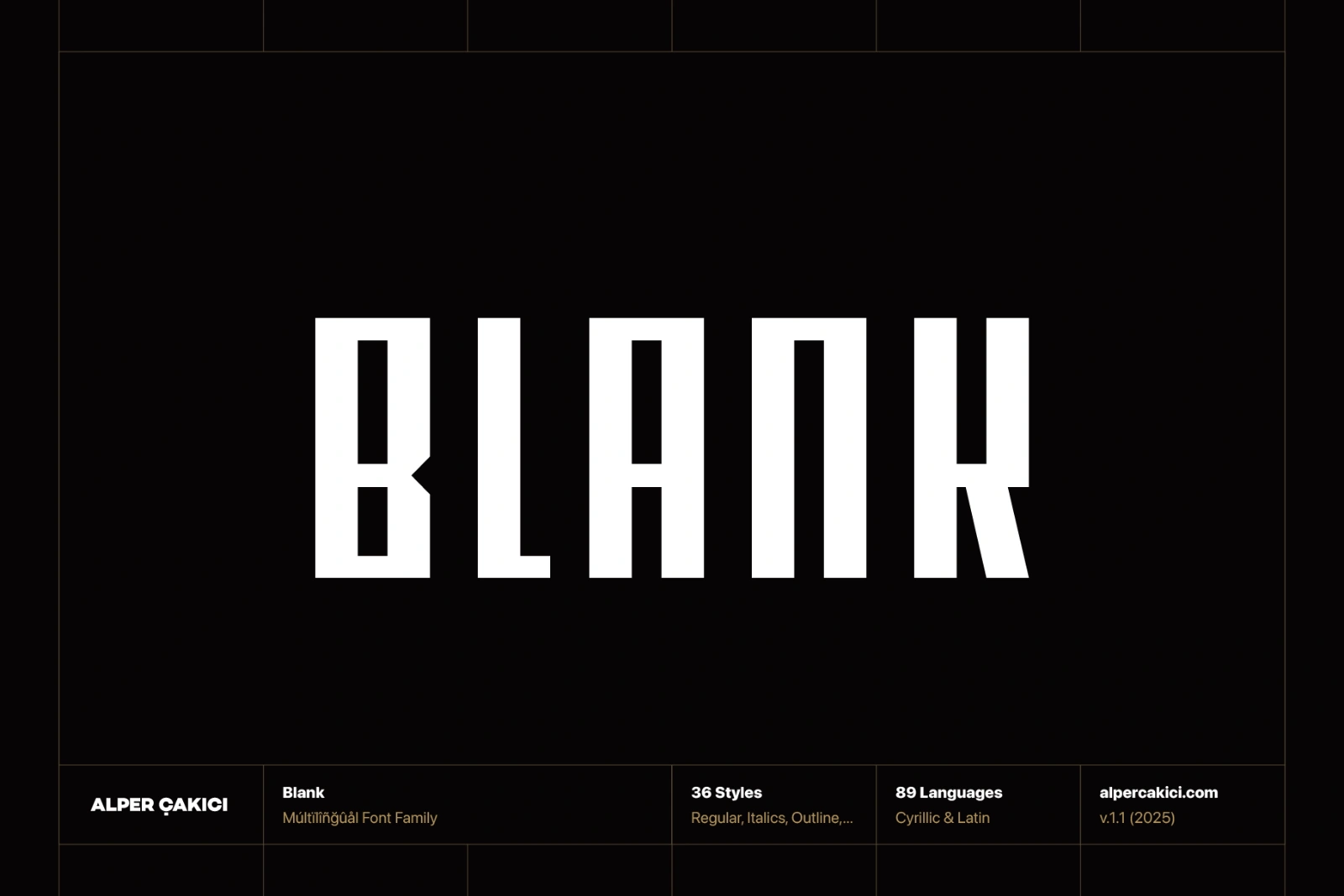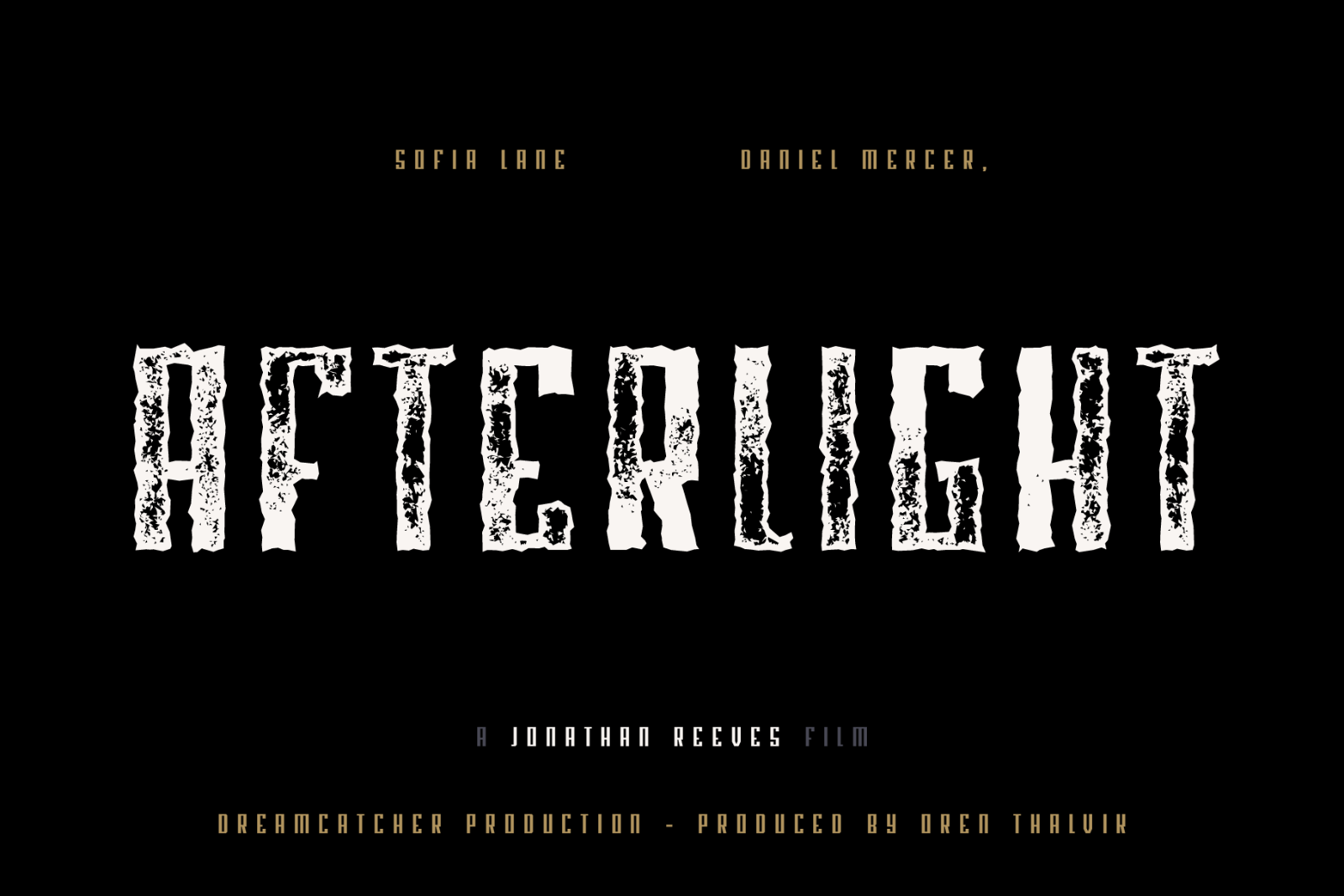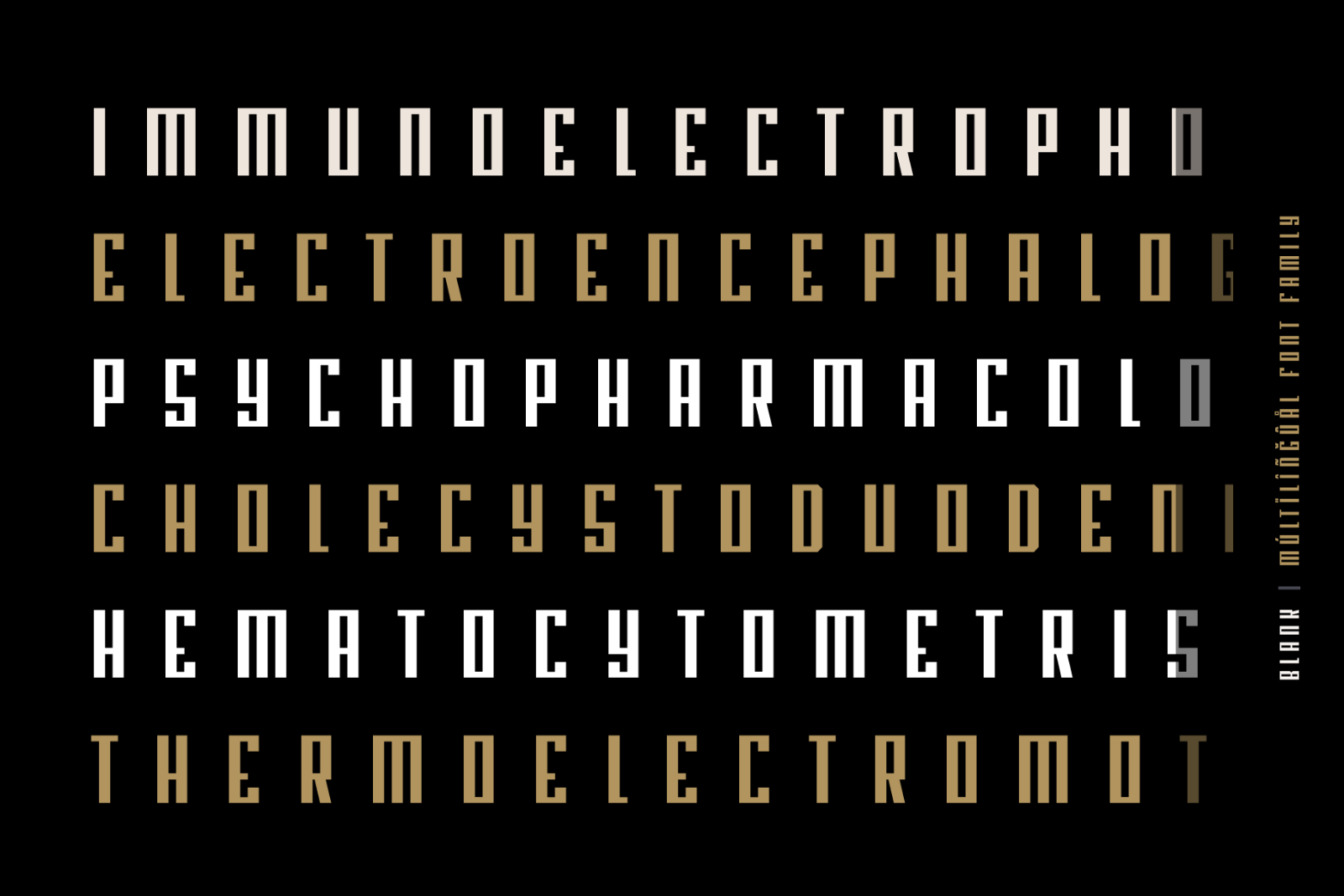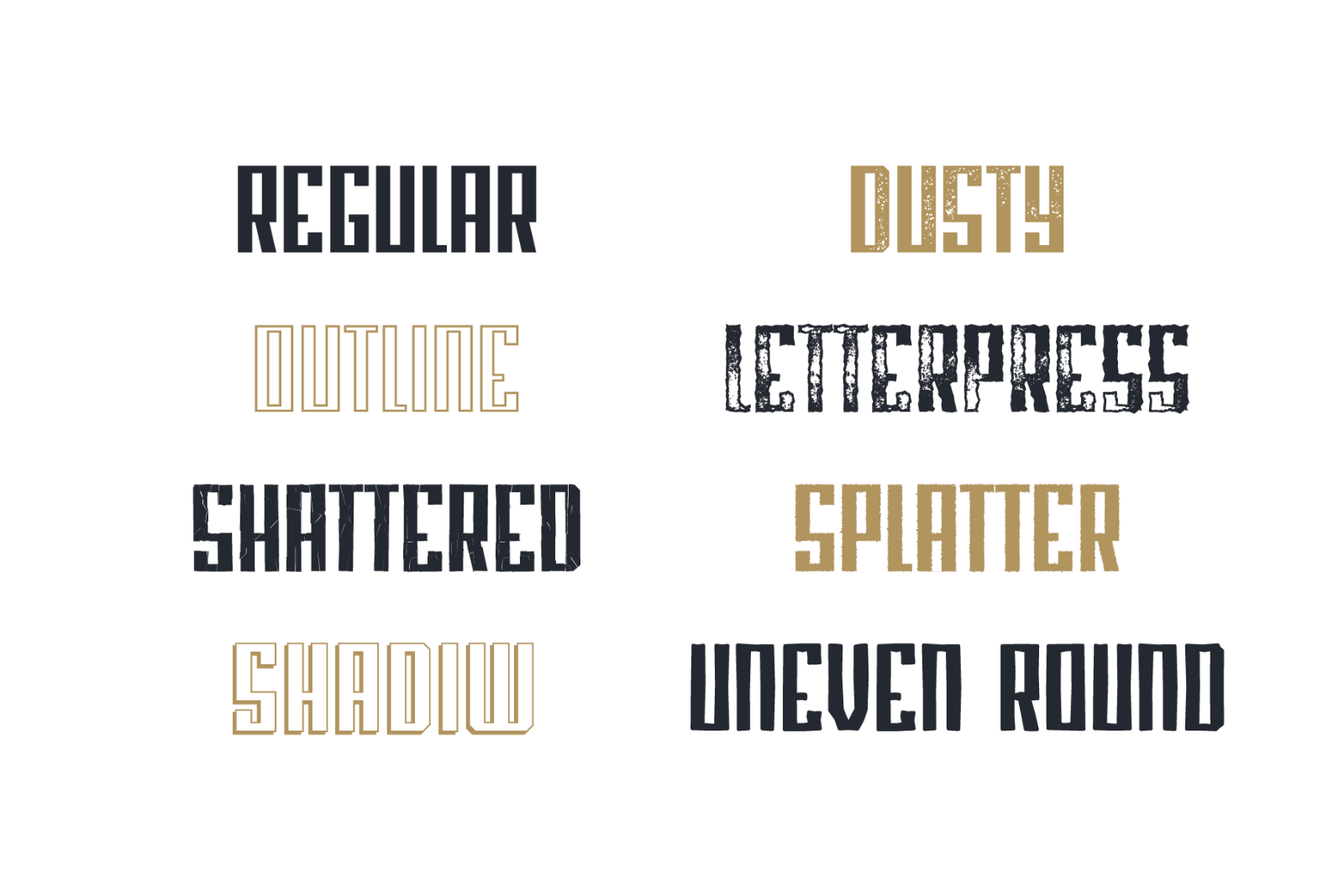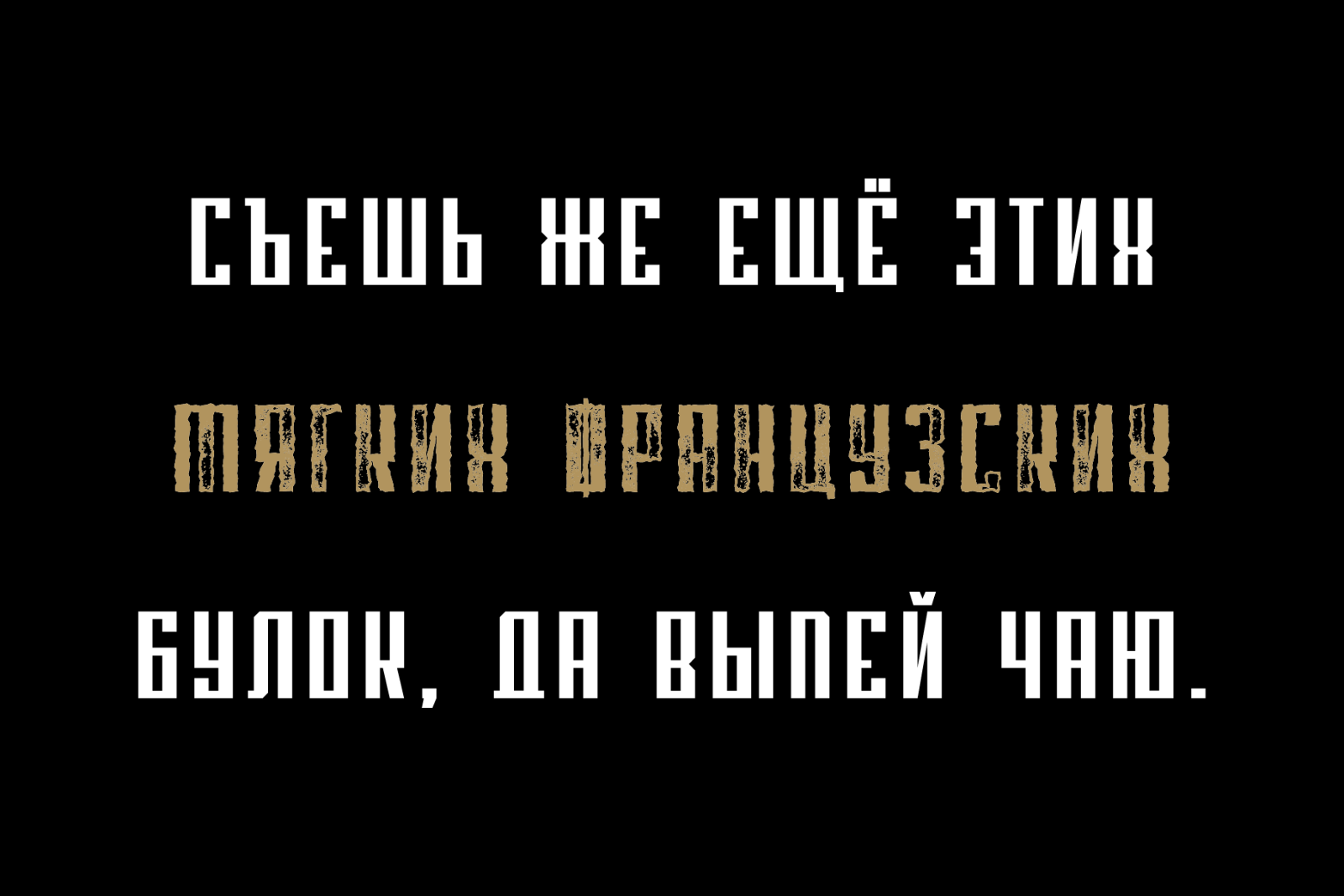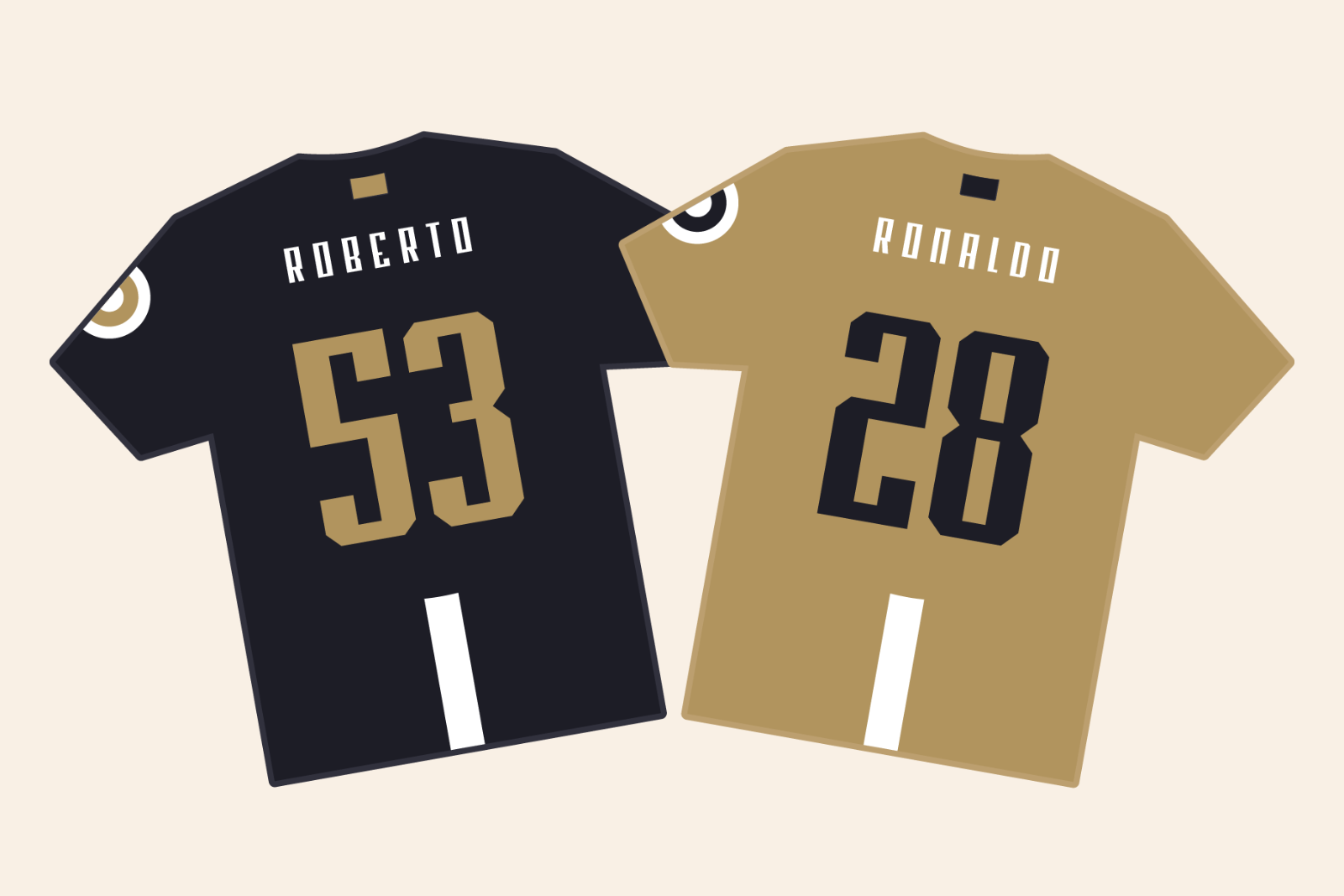
Blank is a modern and versatile typeface designed for clarity, balance, and impact across all mediums. With excellent kerning and carefully refined letterforms, it performs beautifully in both digital and print environments — from sleek web interfaces to bold editorial layouts.
Featuring complete Cyrillic language support, Blank enables seamless multilingual communication, making it a powerful choice for international brands, creative professionals, and design studios.
Its unique design blends timeless geometric proportions with subtle contemporary details, achieving a clean yet distinctive look that sets it apart from typical sans-serifs. Whether used for striking headlines, polished branding, or refined body text, Blank delivers consistent readability and sophistication.
Perfect for modern design projects, Blank combines functionality with aesthetic precision — a reliable companion for designers seeking elegance, versatility, and performance in one unified font family.
Afrikaans, Albanian, Asu, Basque, Bemba, Bena, Bulgarian, Catalan, Cebuano, Chiga, Cornish, Corsican, Danish, English, Erzya, Faroese, Filipino, French, Friulian, Galician, German, Gusii, Icelandic, Ido, Indonesian, Interlingua, Irish, Italian, Javanese, Jju, Kabuverdianu, Kalaallisut, Kalenjin, Kinyarwanda, Kurdish, Lojban, Low German, Luo, Luxembourgish, Luyia, Machame, Makhuwa-Meetto, Makonde, Malagasy, Malay, Manx, Morisyen, North Ndebele, Northern Sotho, Norwegian Bokmål, Norwegian Nynorsk, Nyankole, Occitan, Oromo, Portuguese, Rejang, Romansh, Rombo, Rundi, Russian, Rwa, Samburu, Sango, Sangu, Sardinian, Scottish Gaelic, Sena, Shambala, Shona, Soga, Somali, South Ndebele, Southern Sotho, Spanish, Sundanese, Swahili, Swati, Swedish, Swiss German, Taita, Taroko, Teso, Tsonga, Tswana, Vunjo, Walloon, Wolastoqey, Xhosa, Zulu